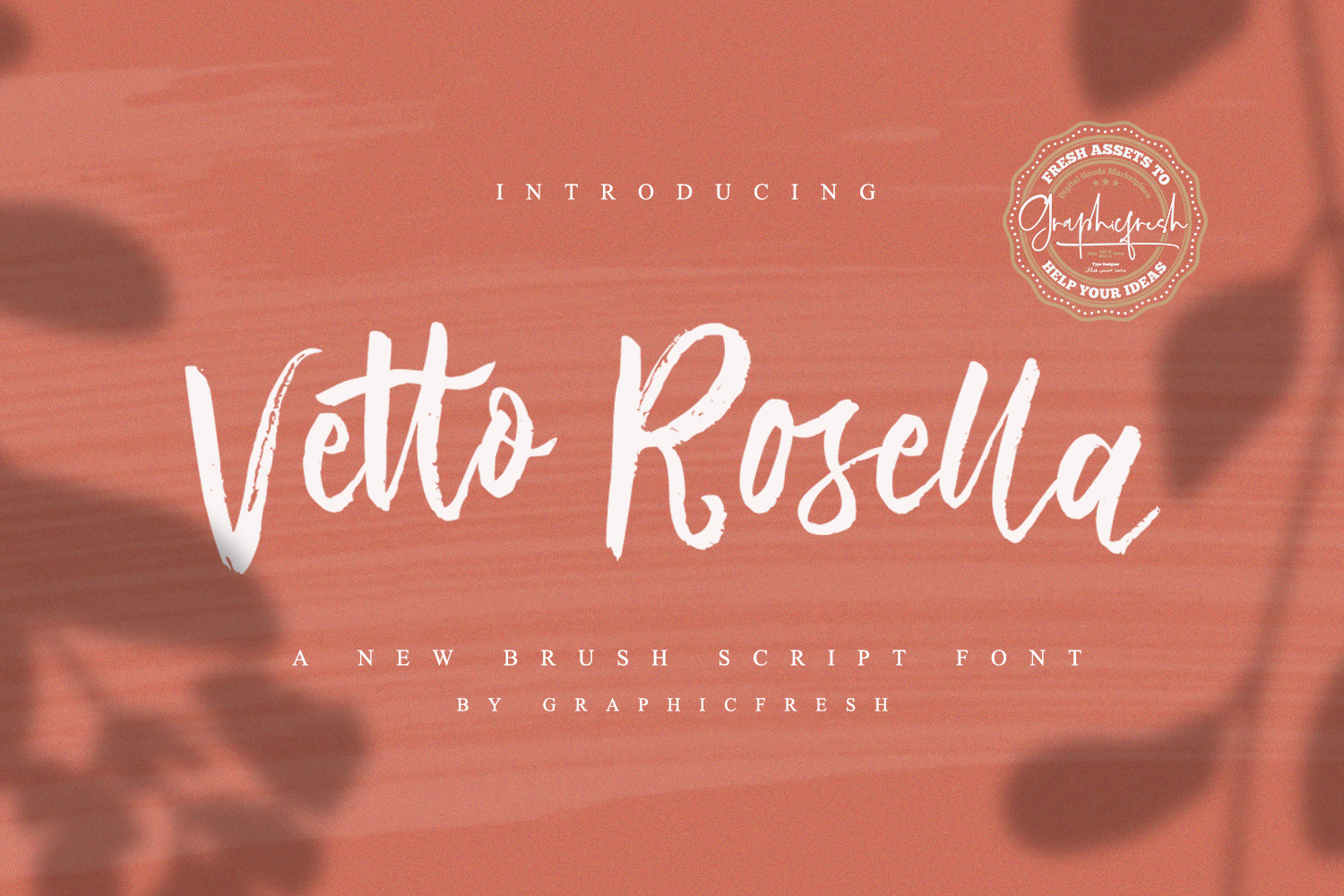
Vetto Rosella - Handwritting Font
Introducing Vetto Rosella Handwritten Font. It comes with an elegant and feminine style which is perfect to make any design stand out! This font is perfect for branding, wedding invites, magazines, mugs, business cards, quotes, posters, and more.
Vetto Rosella Type Features:
- Suitable for Headlines, Logotypes, Signs, Posters, Letterhead, T-Shirt and many more.